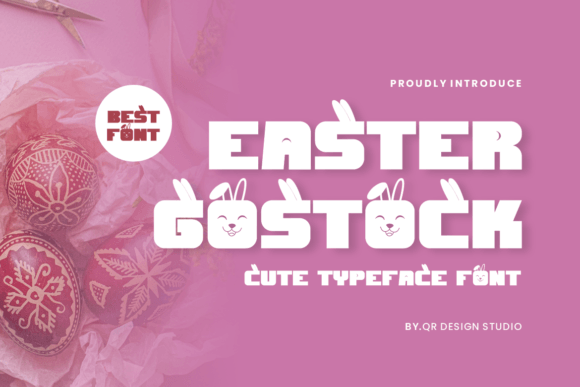
Easter Gostock Font: Add a Touch of Whimsy to Your Creative Projects
Easter Gostock font is a fun, bold, and slightly quirky display font that can add a unique touch to your creative projects. Whether you’re designing a poster, creating a social media graphic, or crafting a brand identity, this font is sure to make your work stand out. In this article, we’ll take a closer look at Easter Gostock font, its features, and how you can use it to elevate your designs.
What Makes Easter Gostock Font Special?
Easter Gostock font is a display font that boasts a bold and playful personality. Its quirky design makes it perfect for projects that require a touch of whimsy and fun. Here are some of the key features that make Easter Gostock font special:
- Bold and Playful: Easter Gostock font is a bold font that grabs attention. Its playful design makes it perfect for headlines, titles, and other display text.
- Quirky and Unique: The font’s quirky design sets it apart from more traditional fonts. Its unique character makes it perfect for projects that require a touch of personality.
- Highly Versatile: Easter Gostock font can be used for a wide range of projects, from posters and social media graphics to brand identities and packaging.
How to Use Easter Gostock Font in Your Creative Projects
Easter Gostock font is a versatile font that can be used in a variety of creative projects. Here are some ideas to get you started:
- Posters and Flyers: Use Easter Gostock font to create eye-catching posters and flyers that grab attention.
- Social Media Graphics: Add a touch of whimsy to your social media graphics with Easter Gostock font.
- Brand Identities: Use Easter Gostock font to create a unique and memorable brand identity.
- Packaging: Add a touch of personality to your packaging with Easter Gostock font.
The Benefits of Using Easter Gostock Font
Easter Gostock font offers a range of benefits that make it a great choice for your creative projects. Here are some of the advantages of using Easter Gostock font:
- Stand Out from the Crowd: Easter Gostock font is a unique and quirky font that can help your designs stand out from the crowd.
- Easy to Read: Despite its bold and playful design, Easter Gostock font is easy to read, making it perfect for display text.
- Highly Versatile: Easter Gostock font can be used for a wide range of projects, making it a great addition to your font library.
Tips and Tricks for Using Easter Gostock Font
Here are some tips and tricks to help you get the most out of Easter Gostock font:
- Use it for Headlines and Titles: Easter Gostock font is perfect for headlines and titles, where its bold and playful design can really shine.
- Experiment with Colors: Easter Gostock font looks great in a range of colors, so don’t be afraid to experiment and find the perfect hue for your design.
- Pair it with Other Fonts: Easter Gostock font pairs well with other fonts, so try combining it with a more traditional font to create a unique look.
Easter Gostock font is a fun, bold, and slightly quirky display font that can add a unique touch to your creative projects. With its bold and playful design, highly versatile nature, and ease of use, Easter Gostock font is a great choice for designers looking to add a touch of whimsy to their work. Whether you’re designing a poster, creating a social media graphic, or crafting a brand identity, Easter Gostock font is sure to make your work stand out.